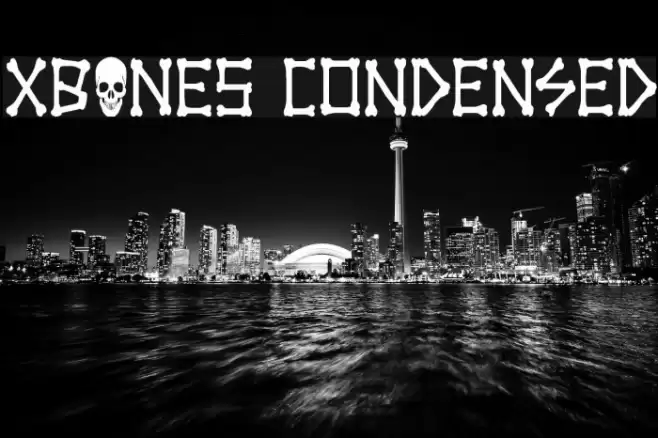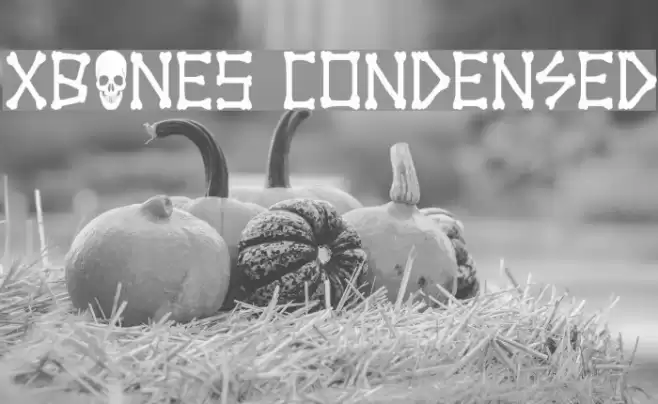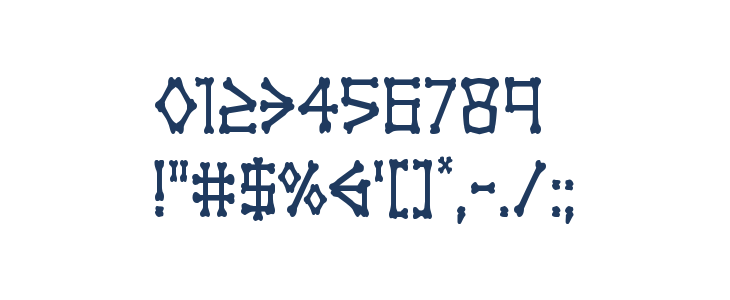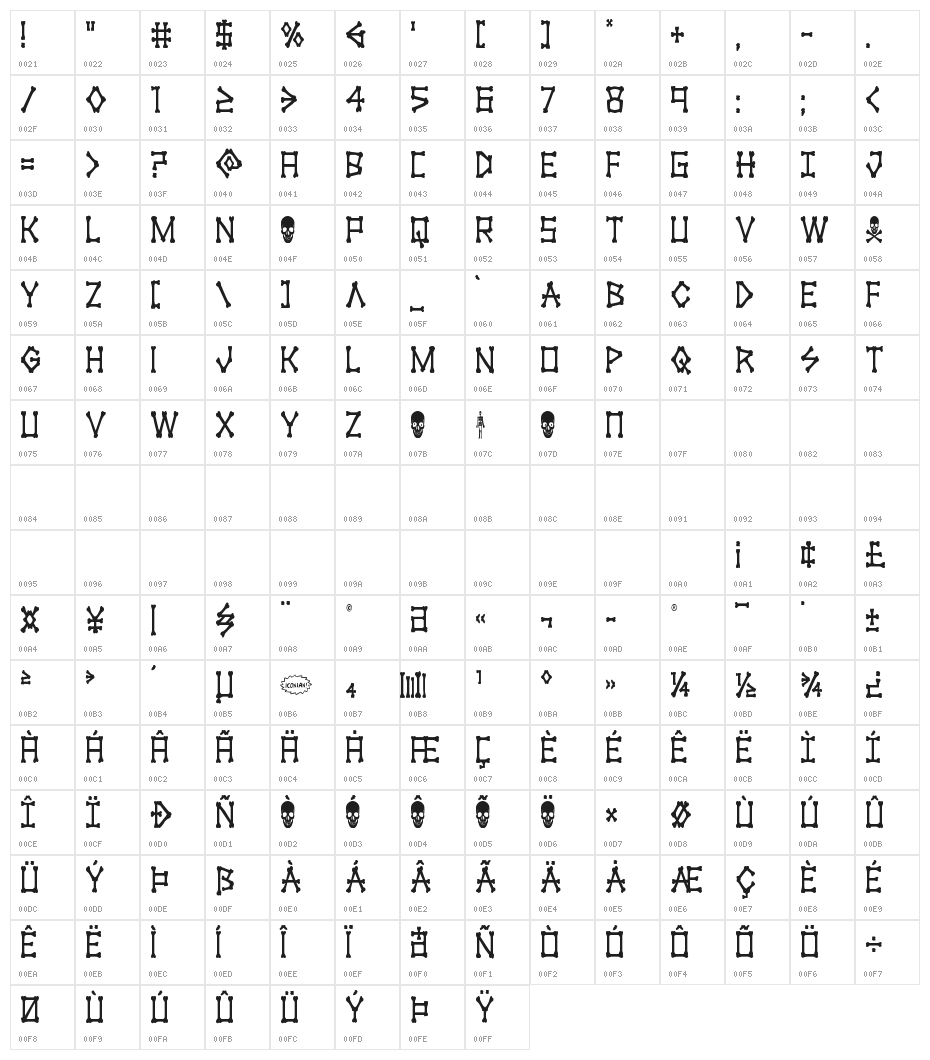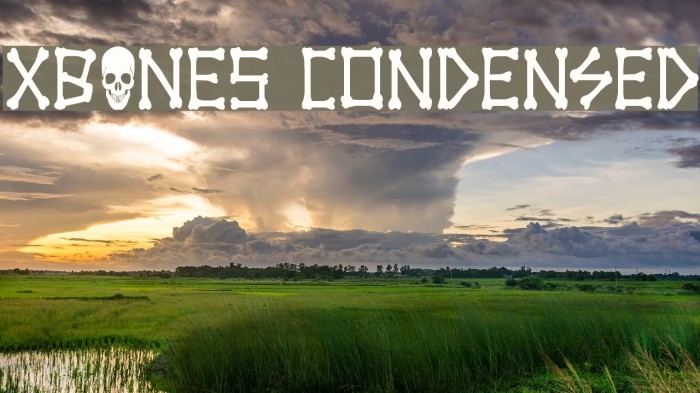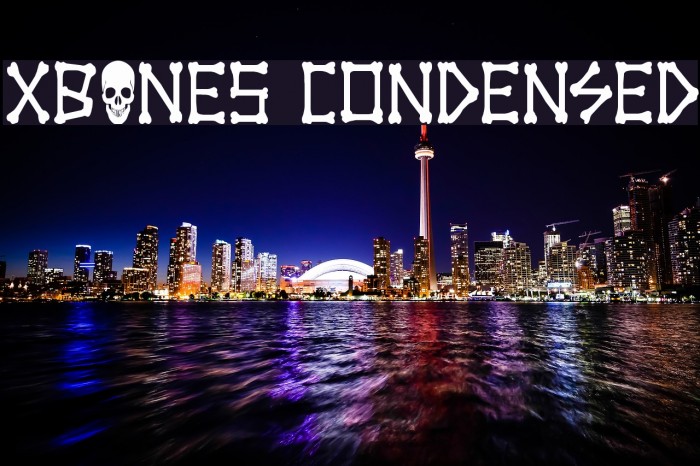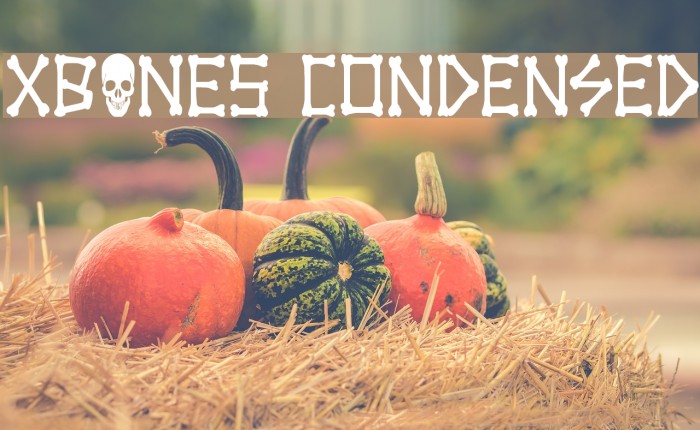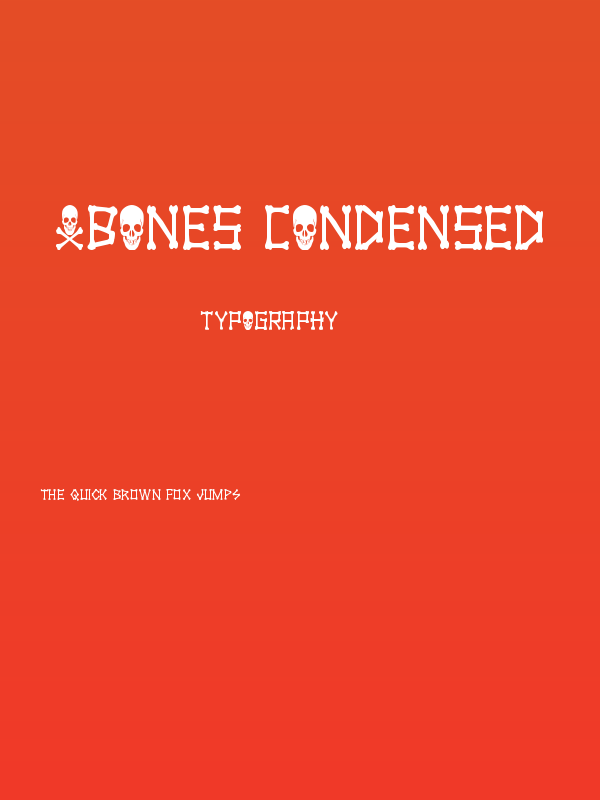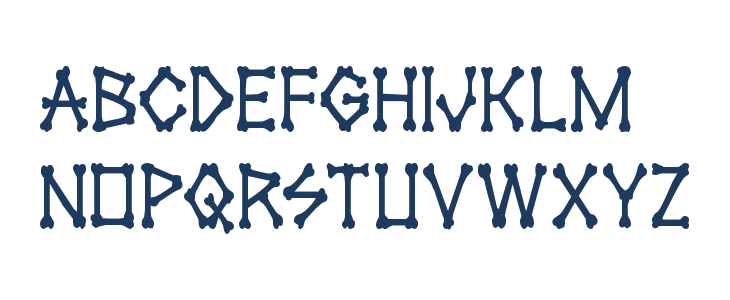
xBONES Condensed Font
xBONES Condensed Description
This font features a unique and playful design, reminiscent of bones or skeletal structures. Each character is crafted with a bold, condensed style, giving it a distinct and eye-catching appearance. The uppercase and lowercase letters maintain a consistent theme, with angular lines and rounded edges that mimic the look of bones. The numbers and special characters are equally stylized, incorporating the same skeletal motif. This font is perfect for Halloween-themed projects or any design that requires a spooky, yet fun aesthetic. Its decorative nature makes it ideal for headlines, posters, and creative displays.
A bold, bone-themed decorative font with a condensed style from Uncategorized fonts.
- Proposed Projects: Ideal for Halloween designs, spooky posters, themed party invitations, and creative displays.